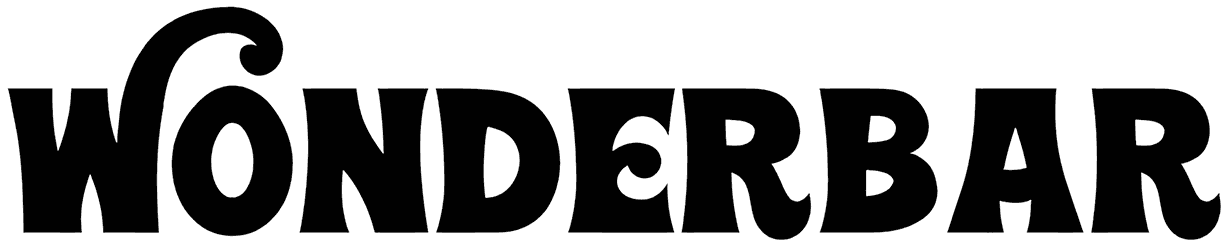
Calling for something new that enlightens your typography, so step right up and put your hands on this Wonderbar font to move mountains in rousing any sweet vintage vibe in all graphical displays.
No walking furries about the lowercase letters lacking, just get a wiggle on utilizing this retro font in many traditional posters, headers of ads, branding, or other areas to convey the aesthetic of the 70s. To get more of this fancy handwritten font, head over to RB!
Need a little fun in your project? Step right up and get your Wonderbar! This mouth watering display font captures the whimsical feel and style of being a kid in the 70’s. Basic latin, punctuation, kerning, European accents, diacritics, alternates, stylistic sets, and a few ligatures are included in the full
version. You can also access the alternates through the glyphs panel or your software program. Due to the loopy uppercase ascenders and descenders glyph overlap is to be expected. Use in a children’s book, poster, or packaging. Guaranteed to not rot your teeth!The full version is available with purchase of a commercial license OR $15 donation via our homepage. This purchase does NOT qualify as commercial license. Please check the included glyph map for complete list of characters before purchasing. Kerning is limited to latin and extended latin.